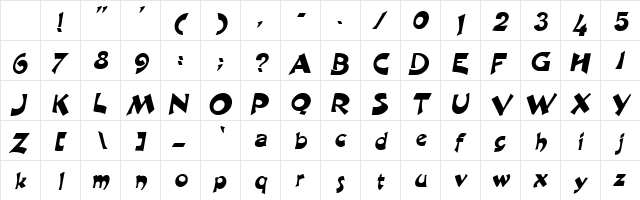
Newel is a composed and adaptable typeface that performs quietly and consistently across a wide range of design contexts. The slanted form adds forward momentum and visual energy.
Pro Tip: Use Newel for emphasis, pull quotes, and subheadings where its slanted energy can add rhythm to the layout.